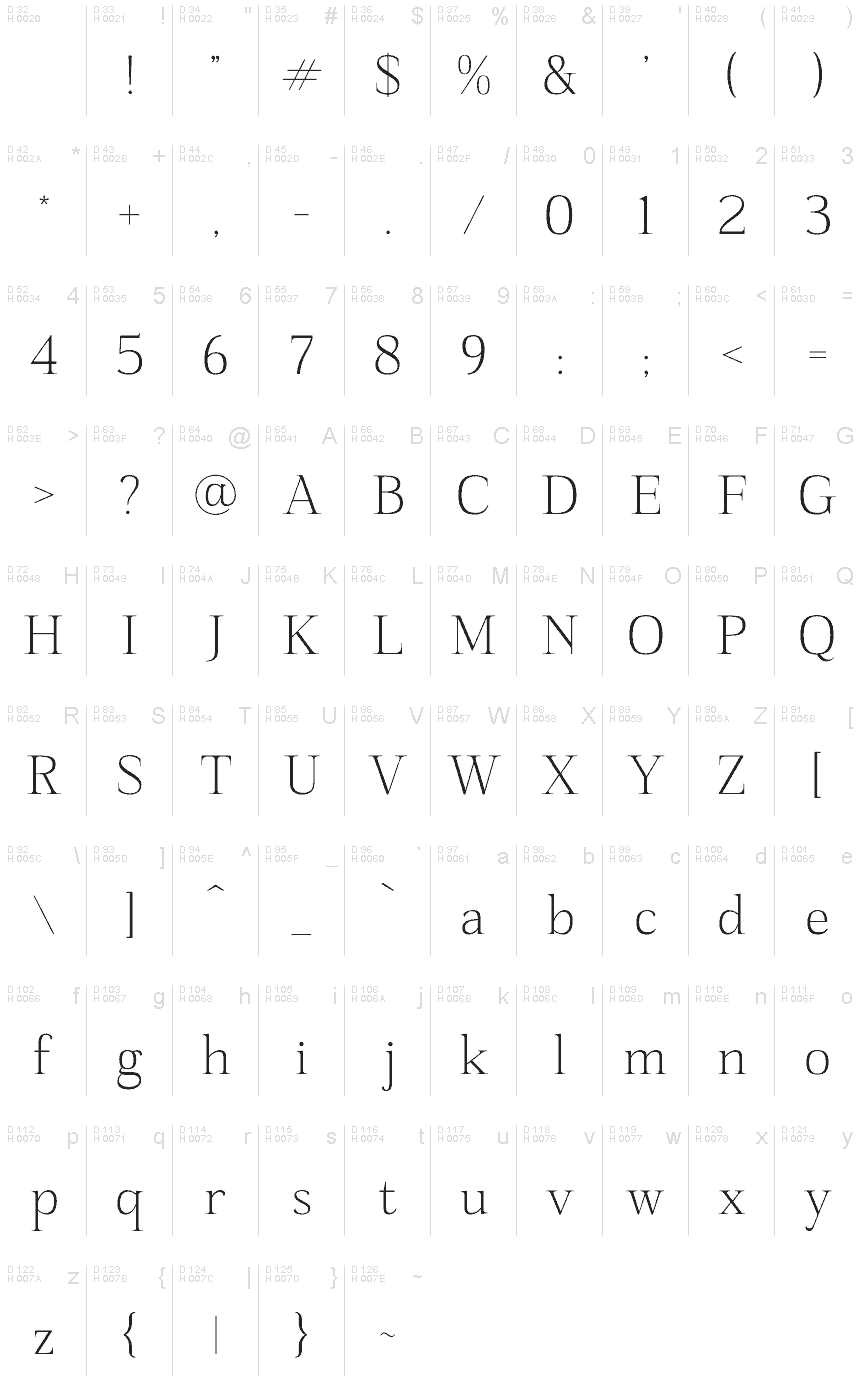
Sanfford
Sanfford font by Storytype Studio is an elegant light serif font that exudes a classic, refined aesthetic with its subtle curves. Its formal mood and delicate design create an unforgettable visual impression suitable for projects that require a touch of sophistication.
This free serif font can be used in logo designs, branding, packaging, blog titles, website headings, photography captions, book covers and interior pages. It suits poster designs, brochure texts or luxurious wedding invitations too.